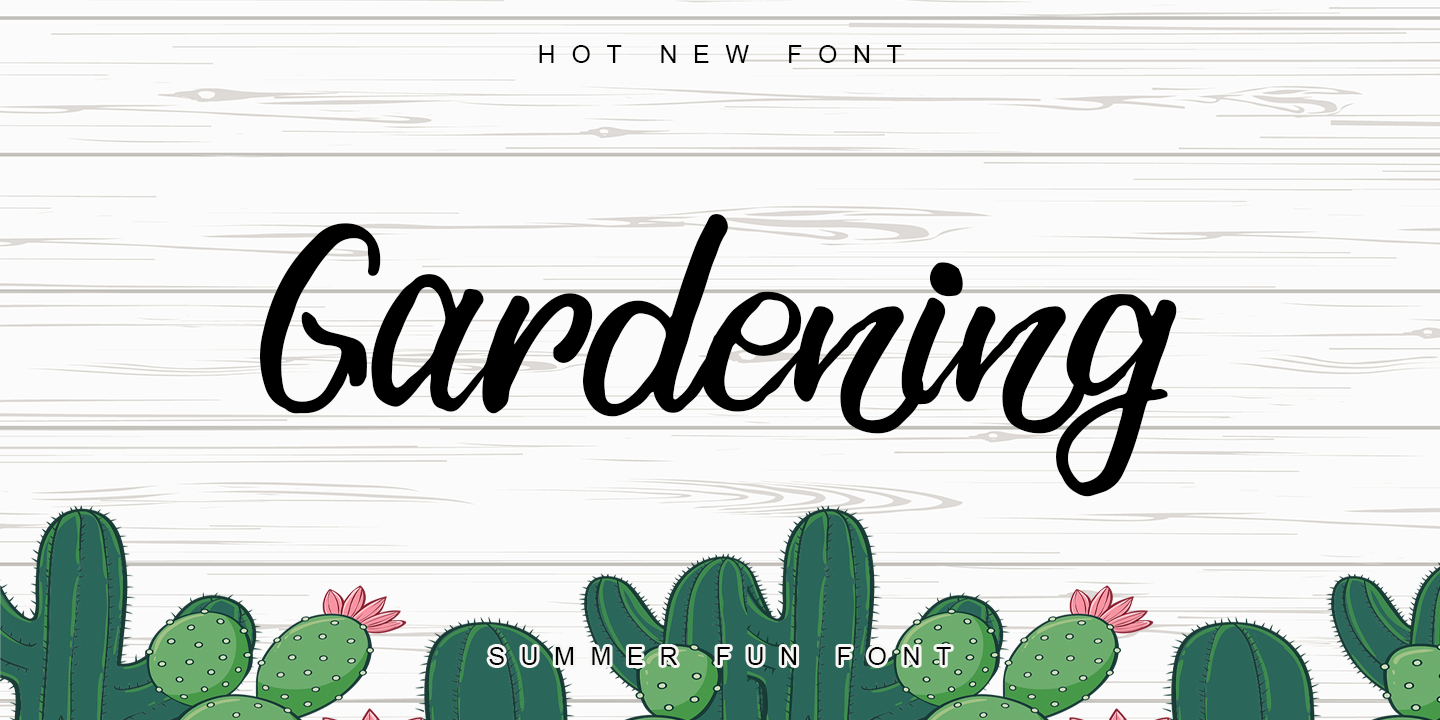
Gardening Font is perfect for nursery branding, botanical garden signage, eco-friendly product packaging, landscaping company logos, organic farming promotions, plant care guides, nature conservation campaigns, and sustainable lifestyle brands. This organic typeface thrives in both digital and print applications where natural beauty, environmental consciousness, and growth symbolism are essential for effective green communication.
What makes Gardening Font exciting is its beautiful fusion of organic growth patterns and natural elegance. The thoughtfully cultivated letterforms feature leaf-like curves, stem-inspired structures, and botanical details that instantly connect viewers with nature's harmony. Its earth-friendly personality makes it ideal for brands committed to sustainability and environmental stewardship. The font's ability to convey both nurturing care and robust growth creates a powerful visual representation of life flourishing.
The Gardening Font family includes various nature-inspired styles: Regular, Bold, Light, Leaf, Vine, and Decorative versions with special botanical symbols, flower motifs, and garden tool icons. Each family member maintains the organic essence while offering different seasonal expressions and growth stages. The comprehensive character set supports multilingual coverage and includes specialized gardening symbols, weather icons, and natural ornaments that enhance eco-friendly branding possibilities.
For environmental branding, botanical marketing, or sustainable design projects, Gardening Font Free Download provides the perfect typography solution for cultivating meaningful connections with nature-loving audiences. Its organic craftsmanship and botanical character make it an essential tool for designers who want to plant seeds of environmental awareness and create designs that bloom with natural authenticity.